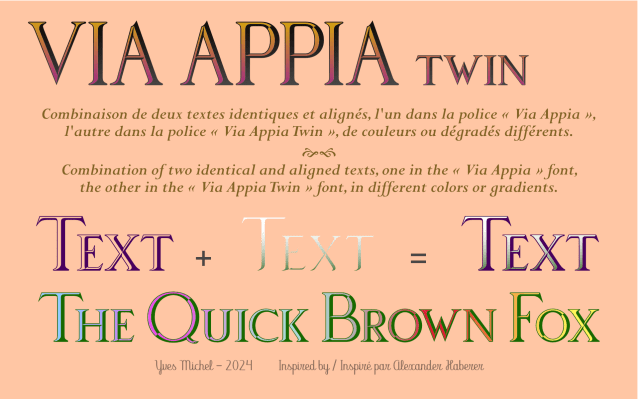
Via Appia Twin Font
Via Appia Twin Font – This “shadow” font consists of the originally empty contours in the “Via Appia” font.
In a graphic program, when the same text is typeset in two text frames at the same size, one in the normal font, one in the shadow font, and the frames are exactly overlaid, you get the combined result of letters and shadows. Fill the two frames with different colors or gradients
This “shadow” font uses the originally empty outlines of the “Via Appia” font.
In a graphics program, if the same text is included in two text boxes of the same dimensions and exactly superimposed, one in the normal font, the other in the Twin font, the result is a combination of the two. Fill the two frames with different colors or gradients.